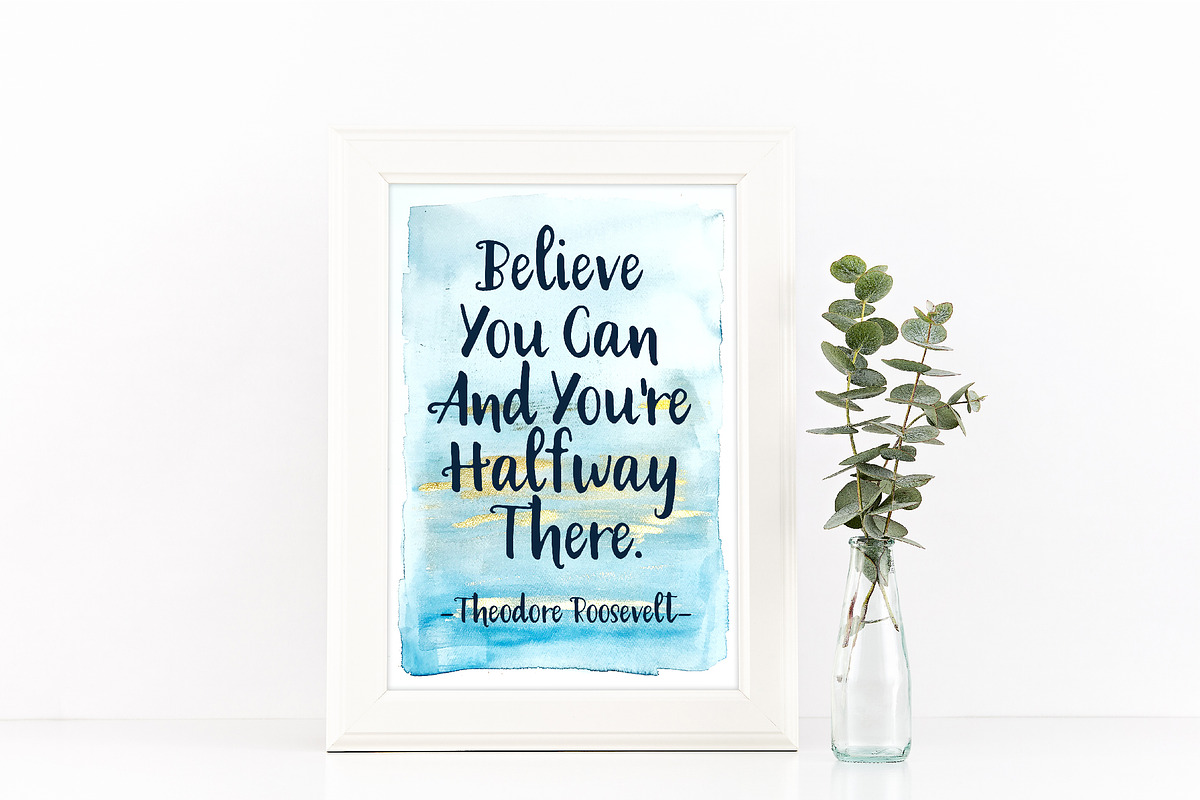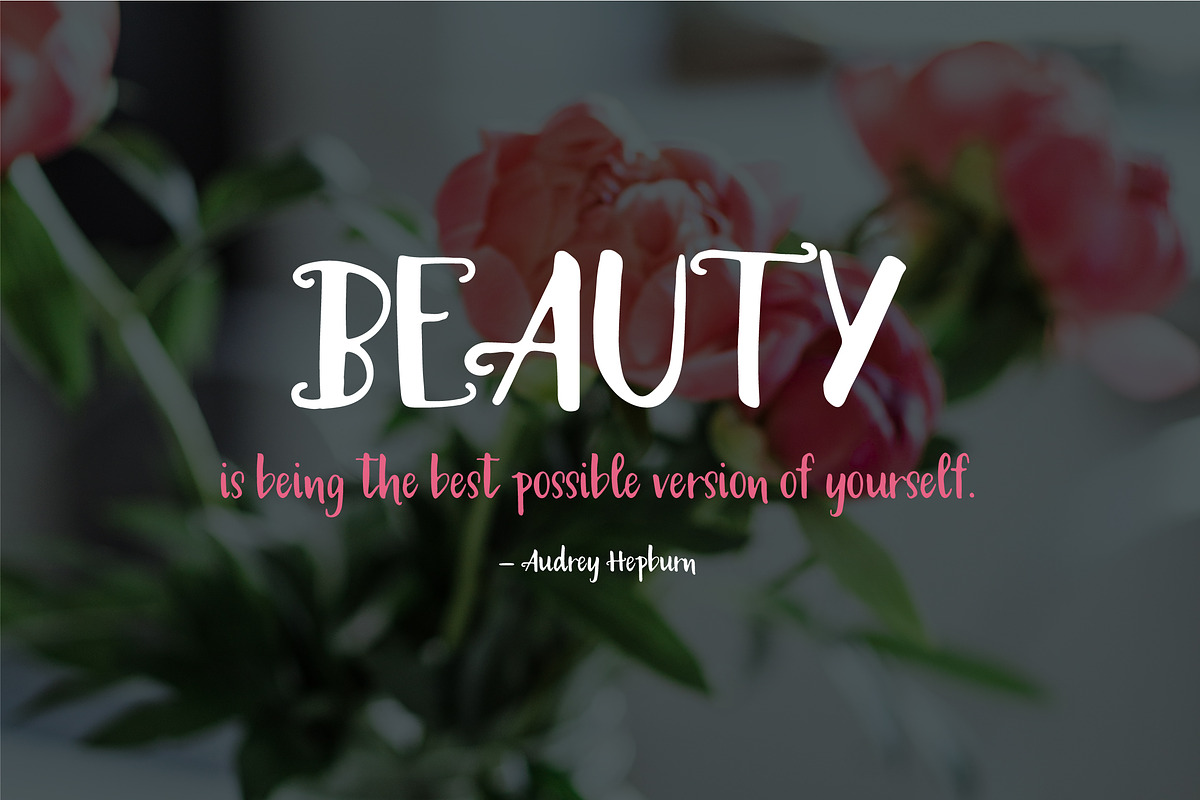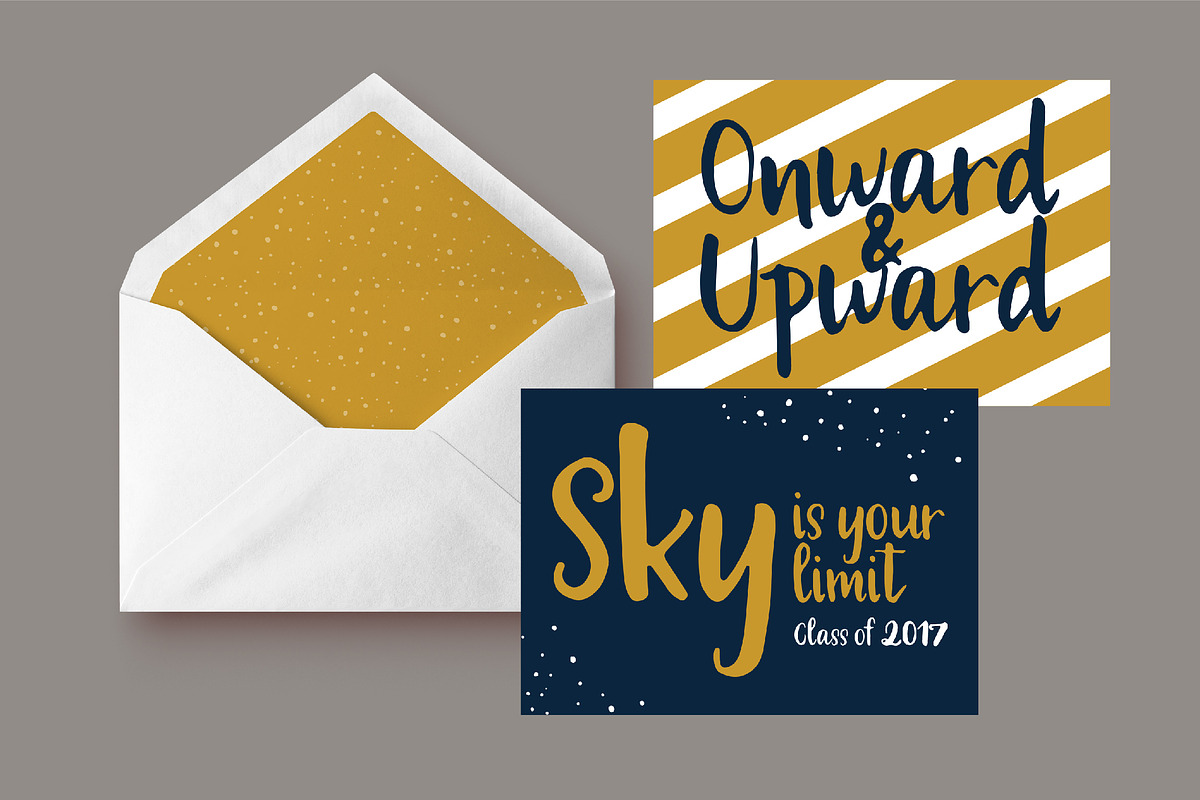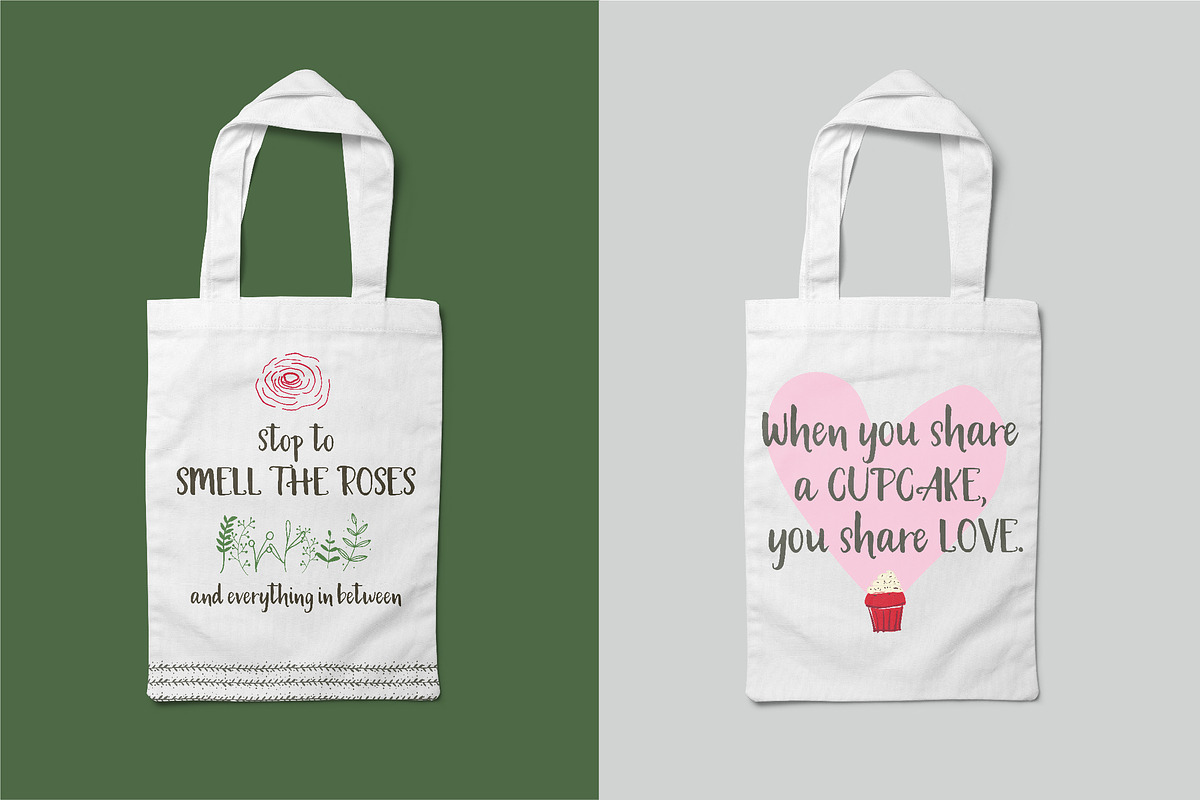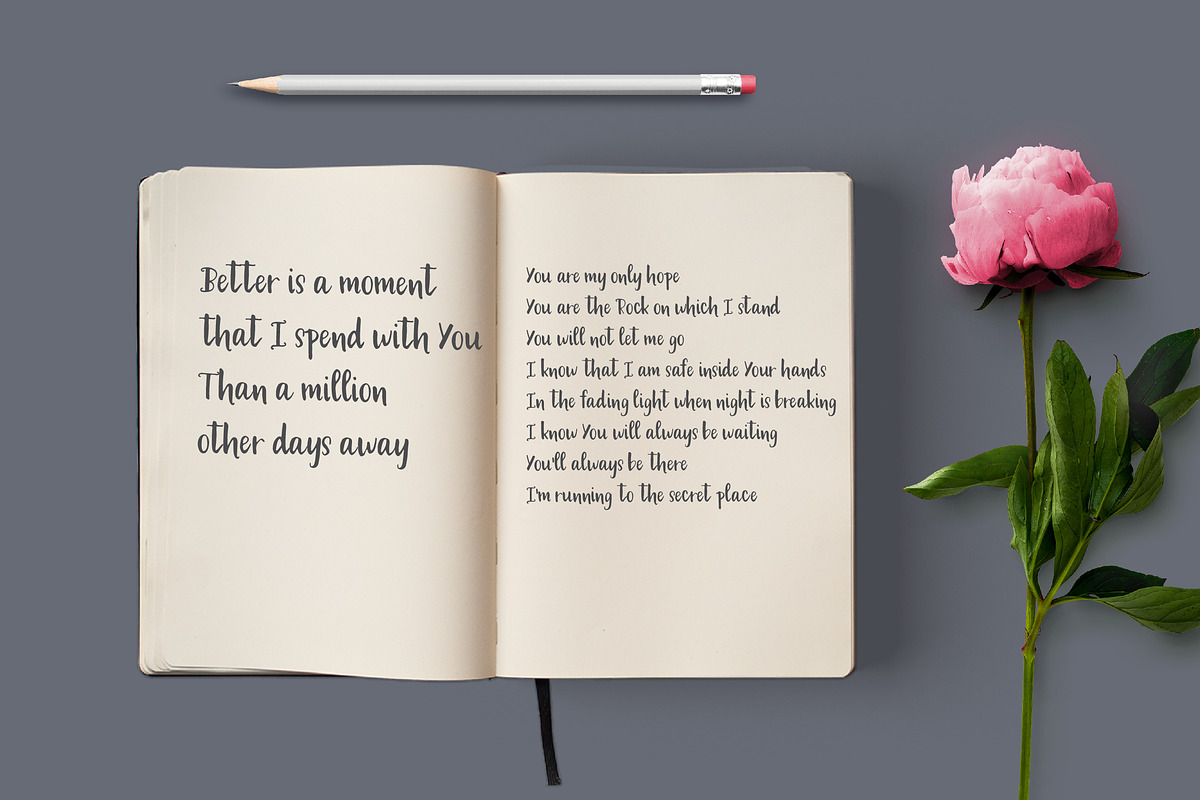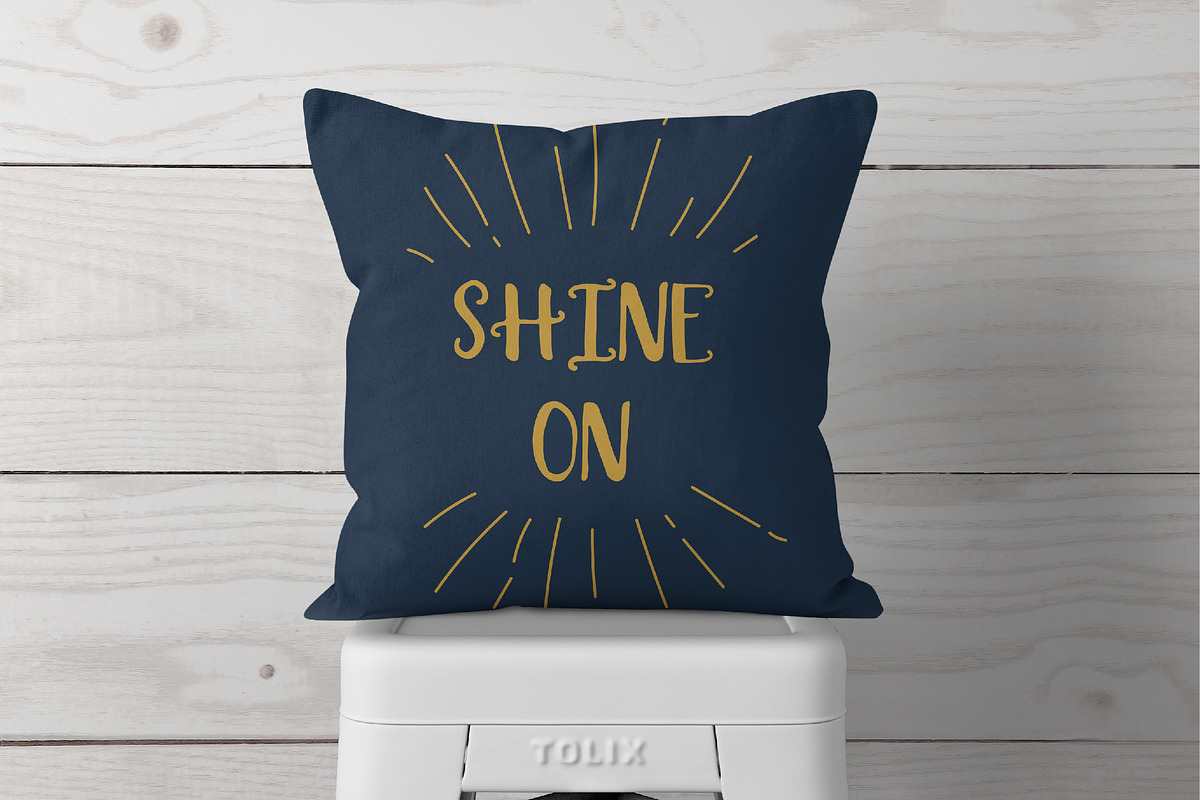
Awakening | Handwritten Font
Awakening | Handwritten Font by Cottonwood312 is a font selected for branding, posters, packaging, typography.
Why Awakening | Handwritten Font is worth a look
Awakening | Handwritten Font by Cottonwood312 fits naturally into Branding, posters, packaging, typography.